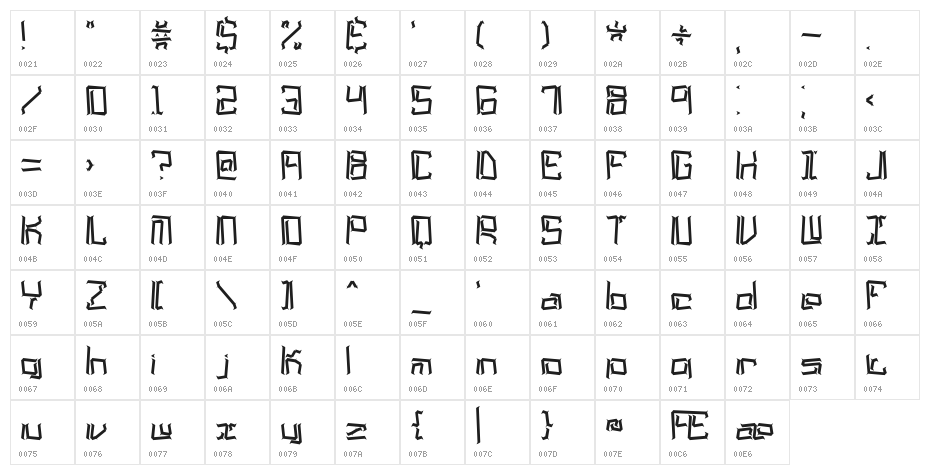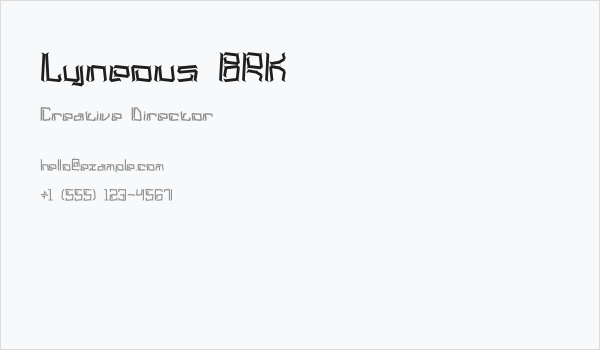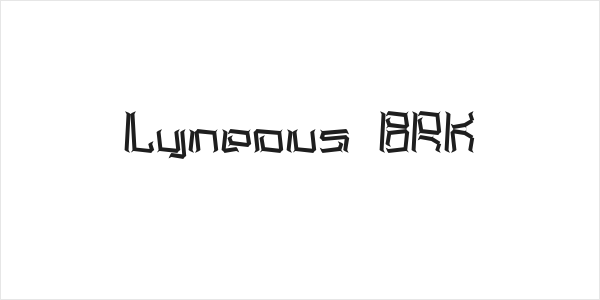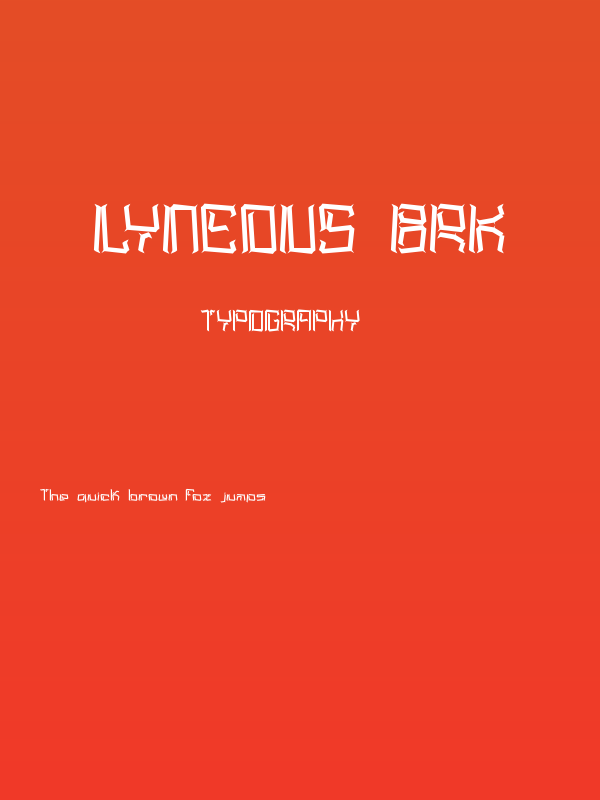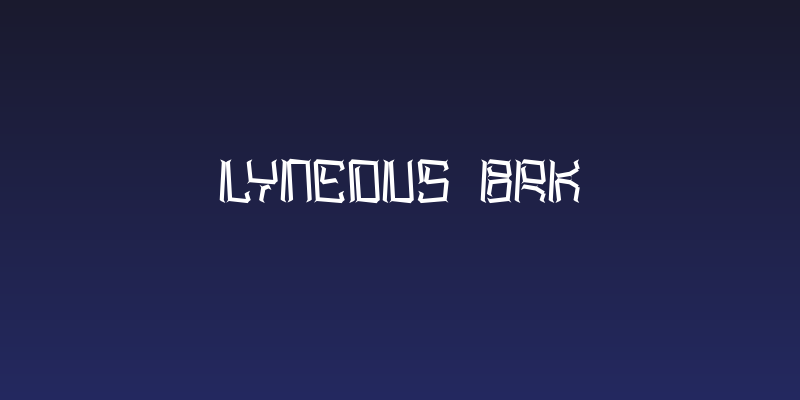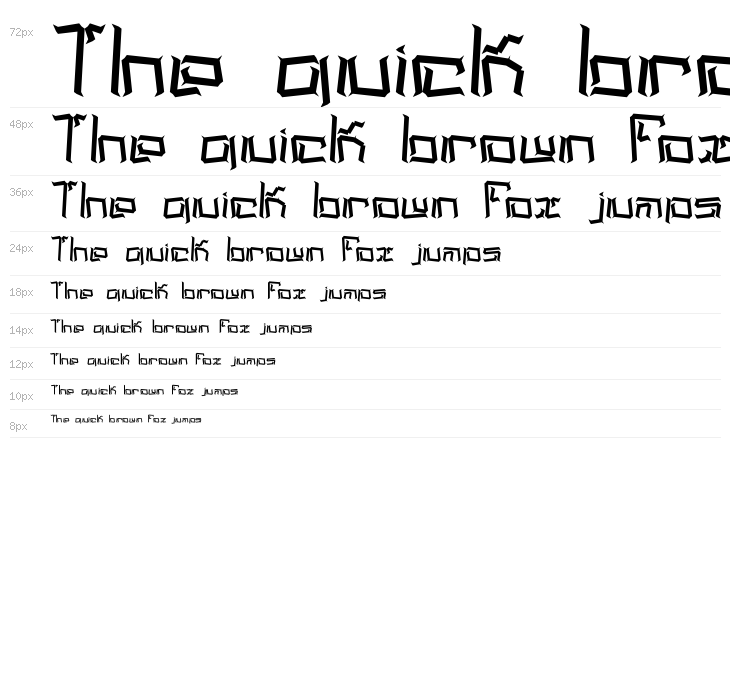
Lyneous BRK Font
Lyneous BRK Description
This font features a bold, angular design with a distinctly modern and edgy appearance. The characters are constructed with sharp, geometric shapes that give them a futuristic and somewhat aggressive look. The uppercase and lowercase letters maintain a consistent style, with the uppercase being slightly more pronounced. Numbers and special characters follow the same design principles, ensuring uniformity across the typeface. The font's unique style makes it stand out, with a strong presence that commands attention. Its high contrast and bold strokes make it suitable for impactful designs.
Proposed ProjectsIdeal for projects requiring a strong visual impact, such as posters, album covers, video game titles, and branding for tech or extreme sports companies.